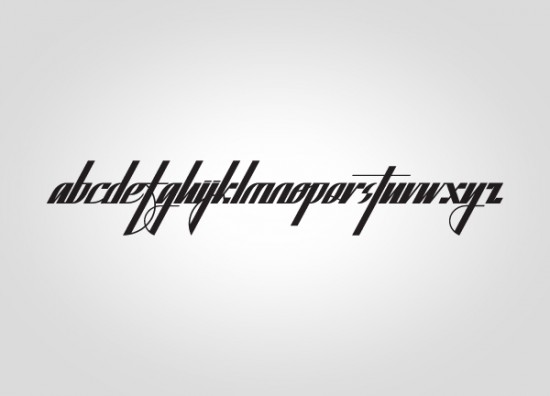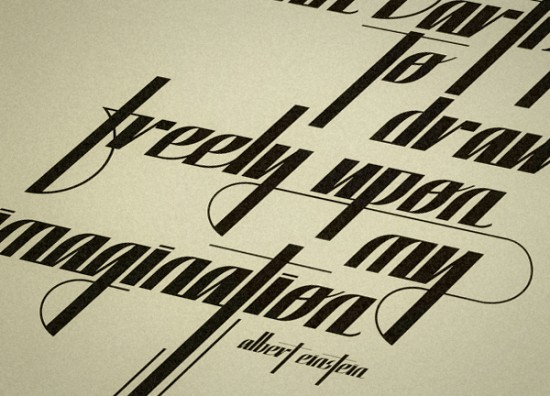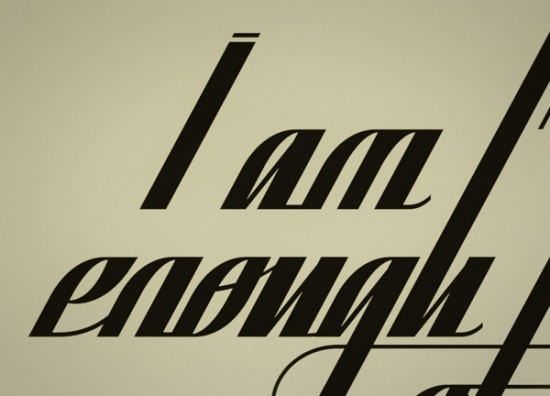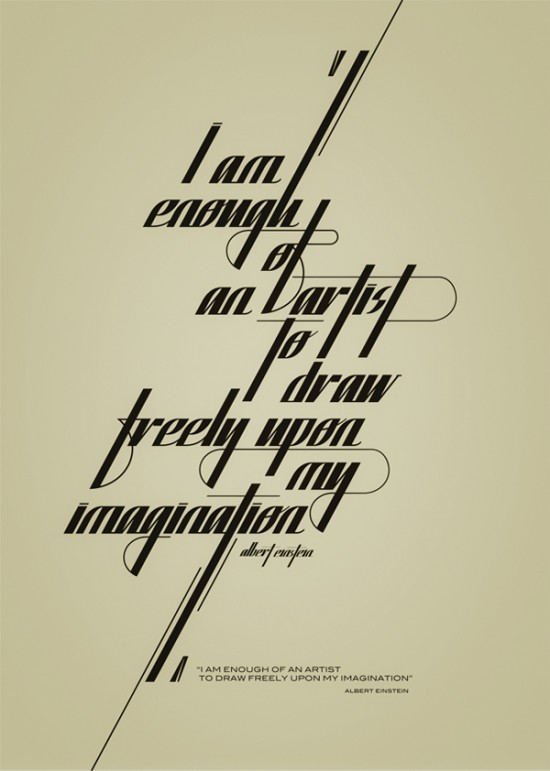
Typeface made by Alex Macsoda especially created for graphic design compositions based on typo.
The whole idea is to illustrate famous quotes from well known artists in a vintage graphic design using only typo.
Typeface made by Alex Macsoda especially created for graphic design compositions based on typo.
The whole idea is to illustrate famous quotes from well known artists in a vintage graphic design using only typo.